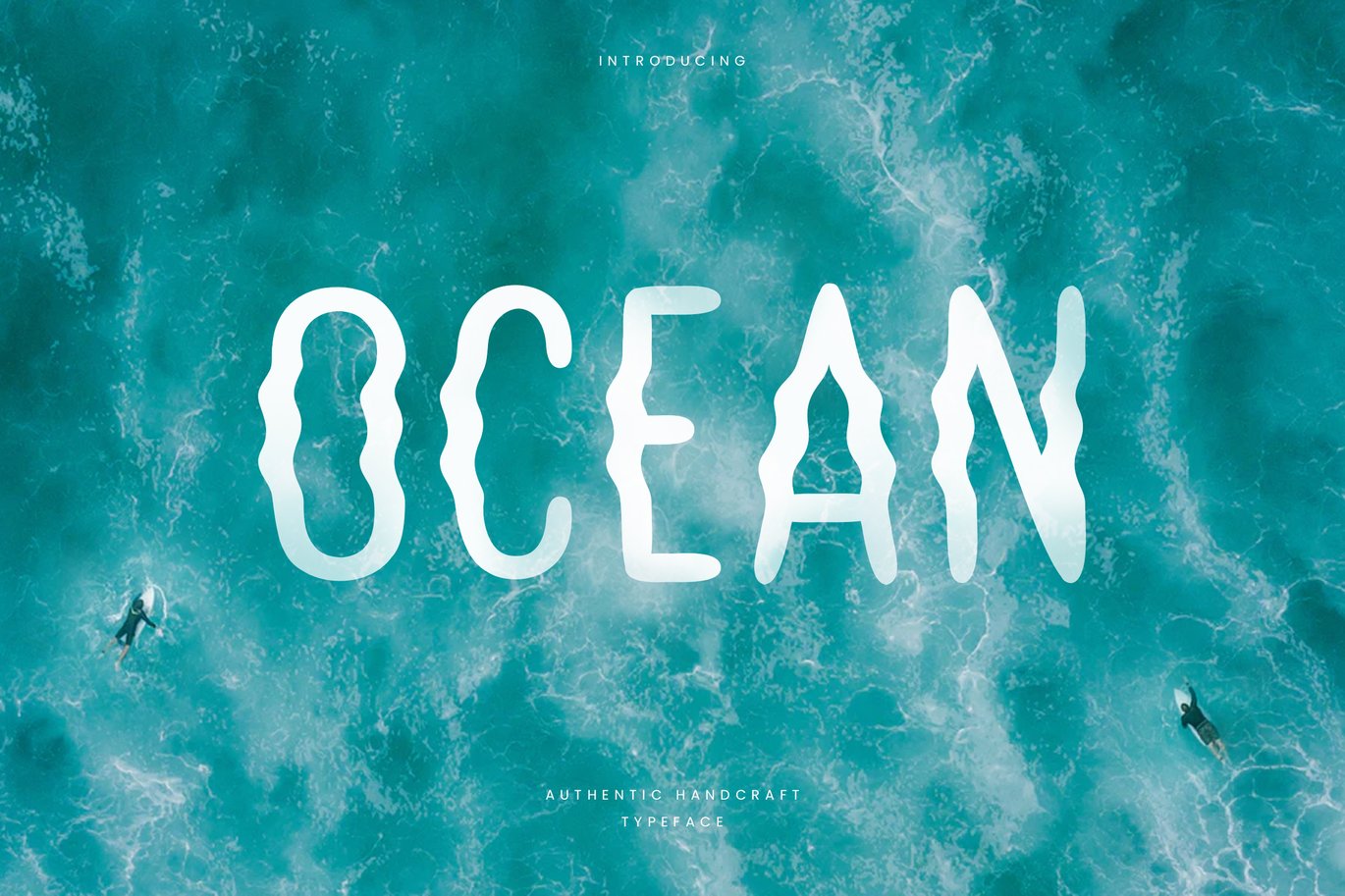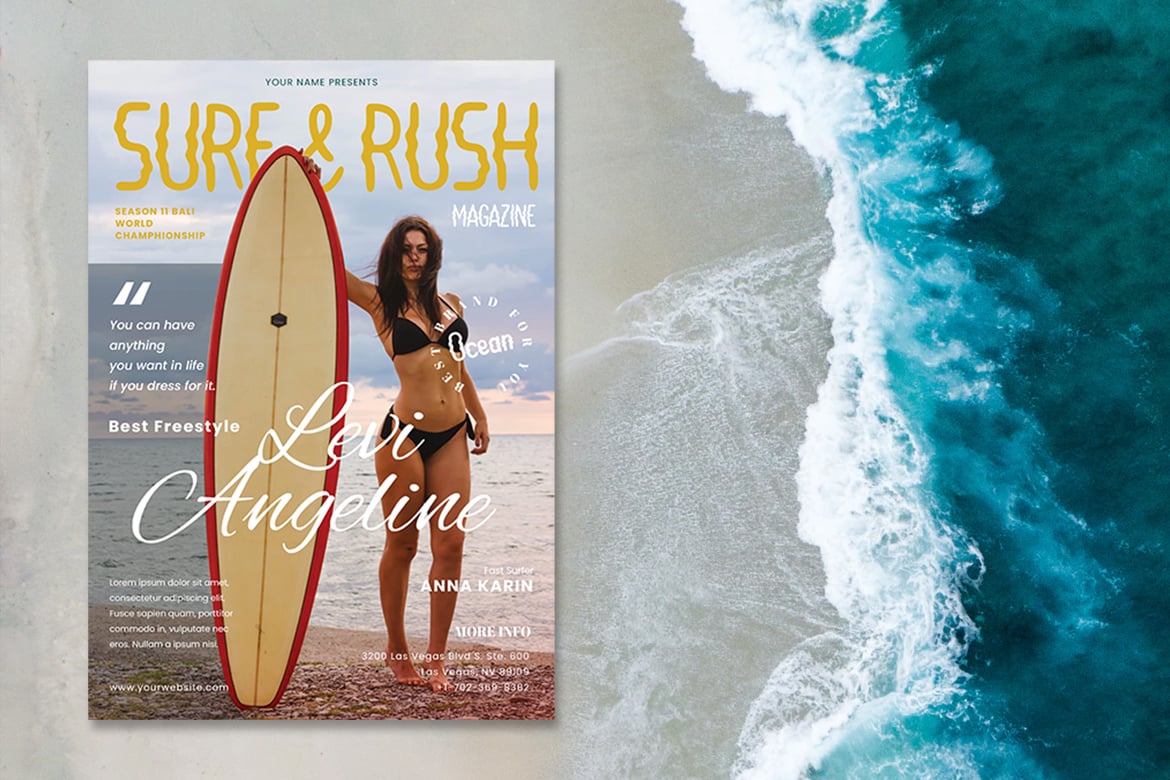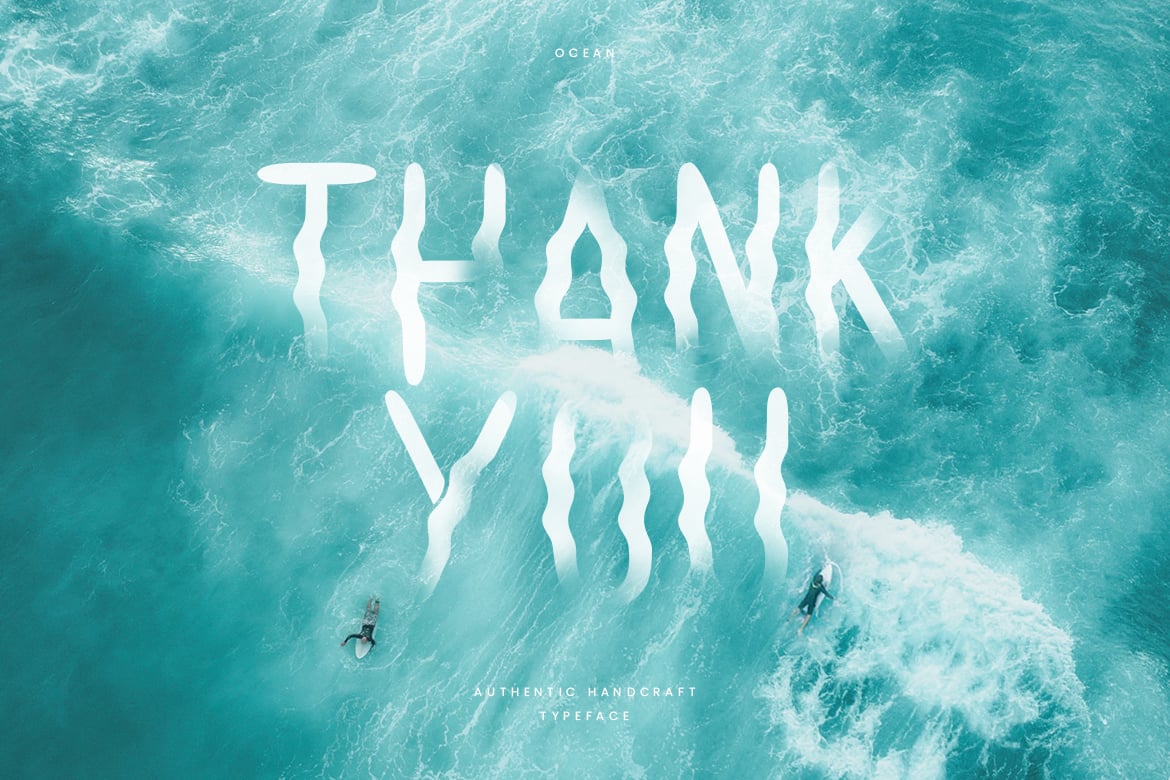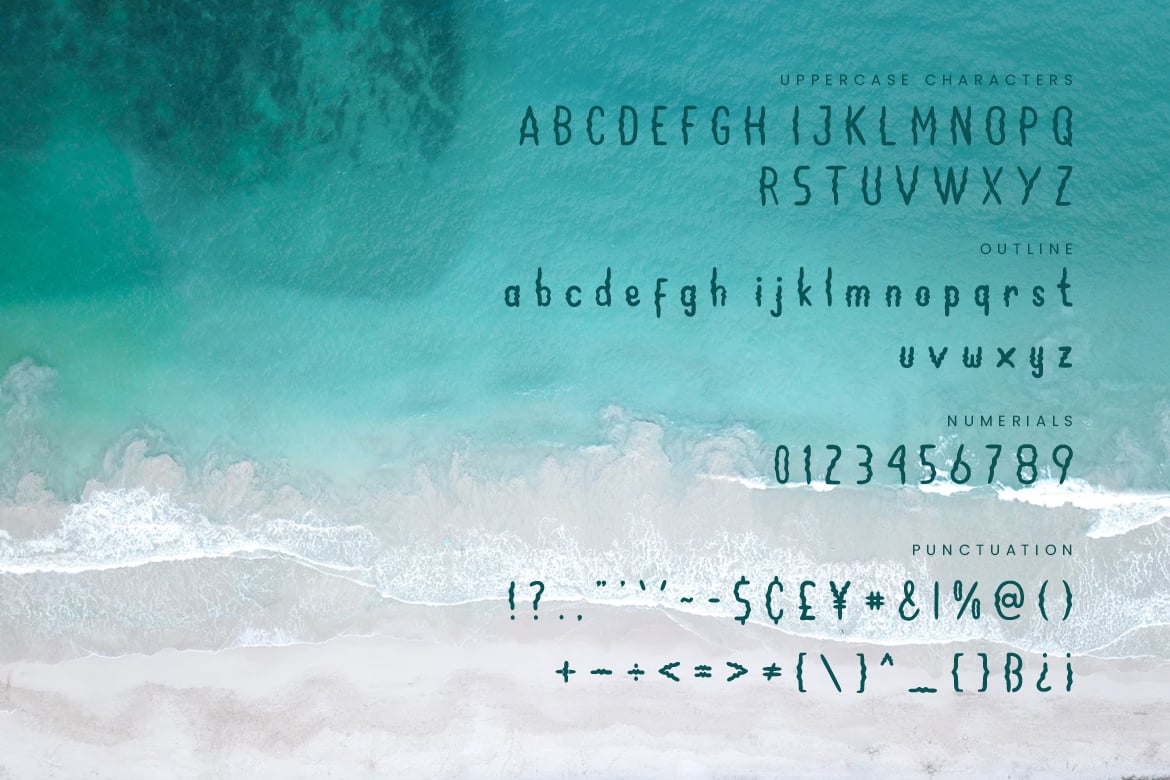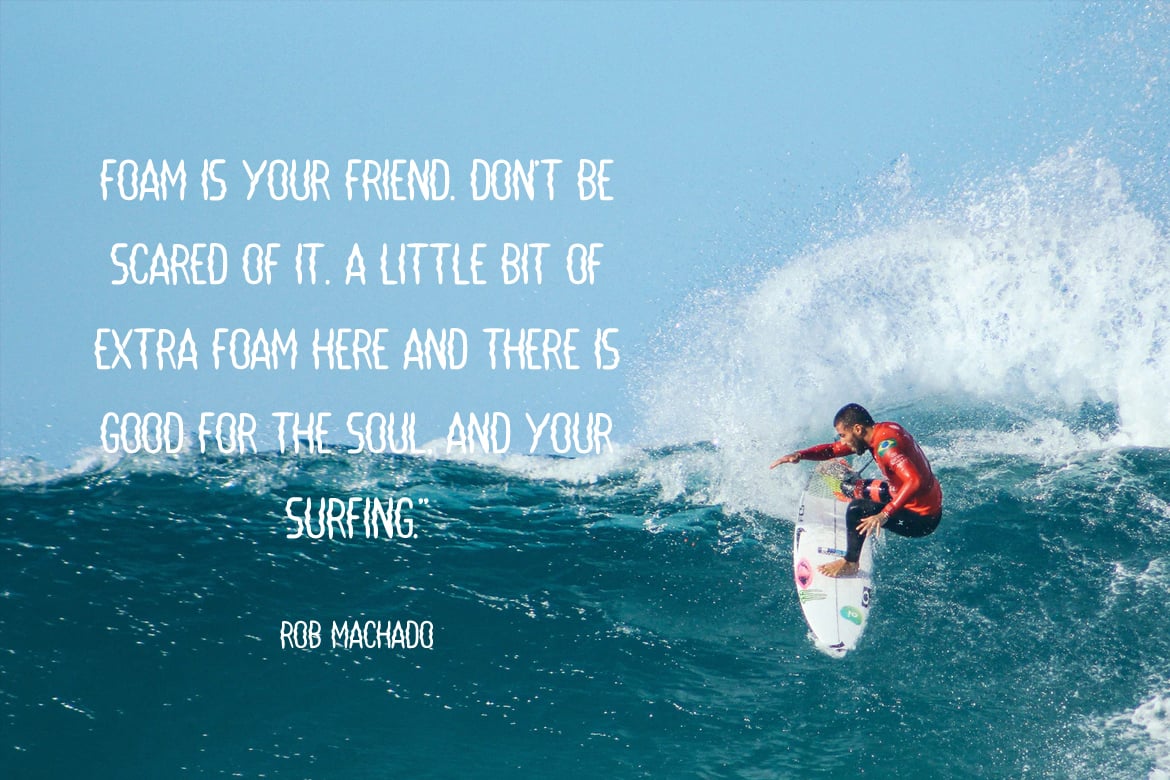
Ocean – Hand Writing Summer Font
Are you looking for a good summer vibes and beach font? We can help! Try to download our ocean font. The font is suitable to use for all all purpose. Try to use it on flyer, greeting card, poster, quotes, postcard, photography, branding, editorial, and signature to see the best of it π